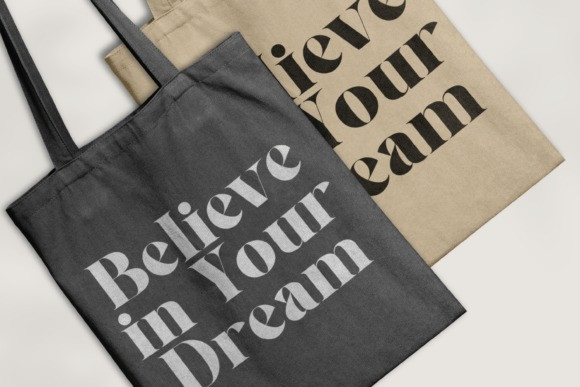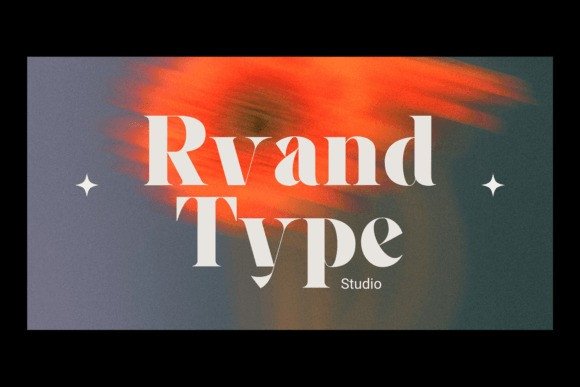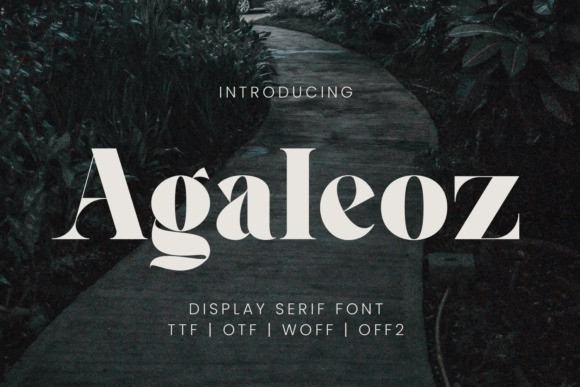
Agaleoz Font
Agaleoz Font is an elegant serif font, perfect for use in logos, branding, invitations, stationery, wedding designs, social media posts, and so much more.